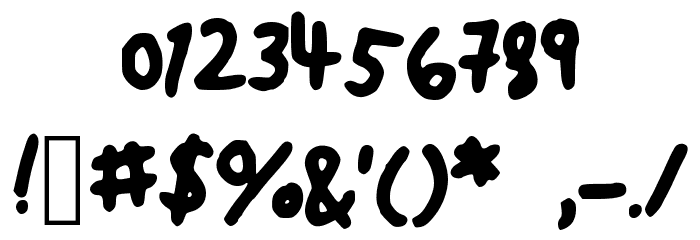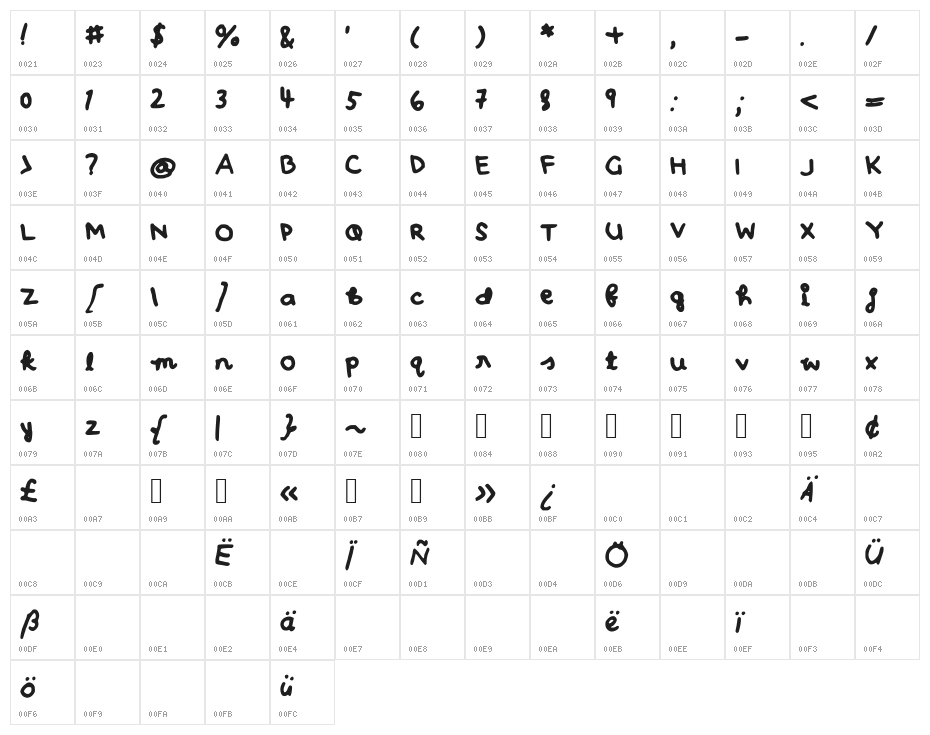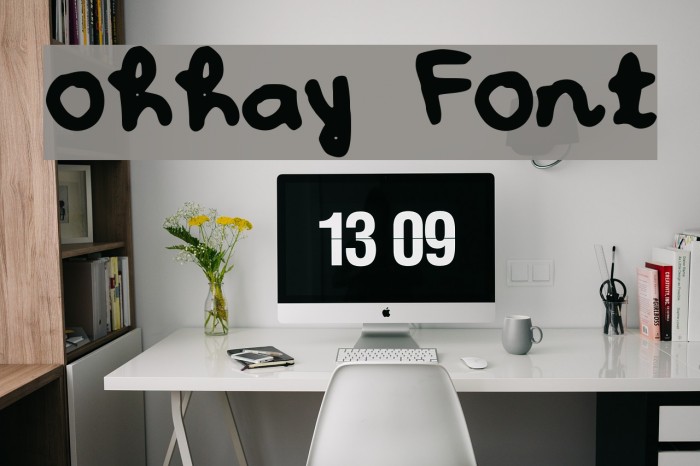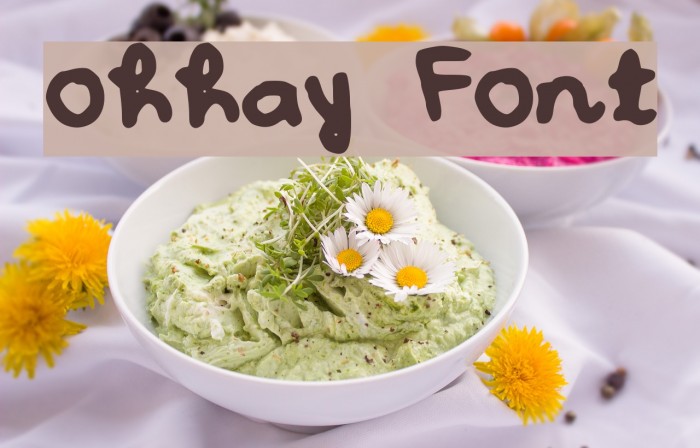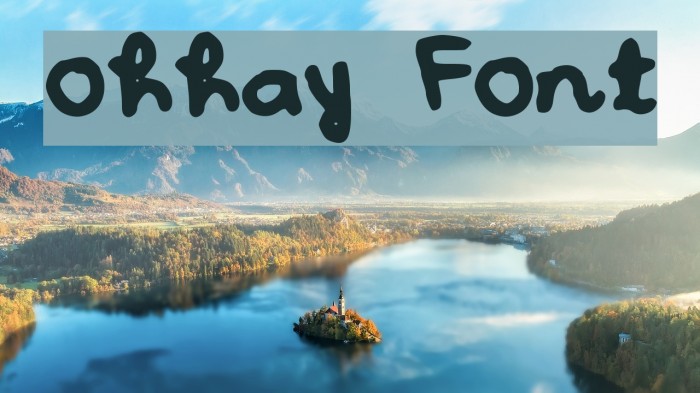
ohhay Font
ohhay Description
This playful and bold font features a handwritten style with a casual, friendly appearance. The characters are rounded and slightly irregular, giving them a unique and organic feel. The thick strokes and consistent weight throughout the alphabet make it highly legible, even at smaller sizes. The font includes both uppercase and lowercase letters, numbers, and a variety of special characters, making it versatile for different design needs. Its informal and approachable style is perfect for projects that require a personal touch or a fun, lively aesthetic.